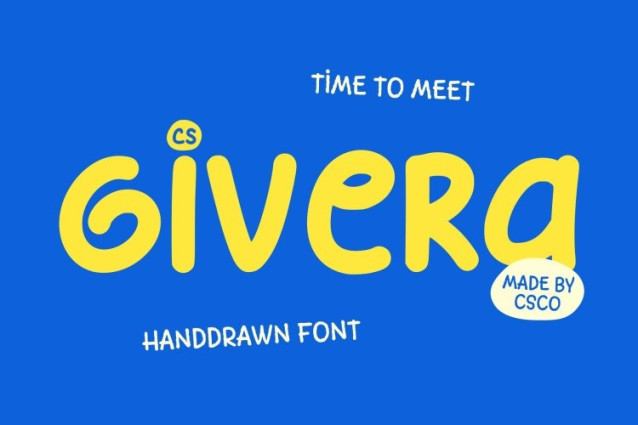
CS Givera Font
CS Givera Font This is a fun display font designed to bring playful energy and friendly expression to every project. Its bold strokes and lively shapes create a warm, approachable presence that instantly draws attention. Crafted with creativity and charm, this font delivers a fresh and youthful visual tone that lights up any design with personality.
Friendly Shapes for a Soft, Welcoming Look
The rounded, friendly letterforms give this font a comforting and inviting character. Each shape feels thoughtfully designed to maintain clarity while highlighting a playful spirit. This soft, approachable construction makes the font ideal for designs that aim to feel joyful, expressive, and visually engaging.
Energetic Style for Vibrant, Creative Designs
This font stands out with its energetic rhythm and dynamic forms. The bold structure enhances visibility, while its quirky touches add a sense of fun and movement. This expressive style helps your text convey excitement and positivity, making it perfect for creative storytelling and cheerful design themes.